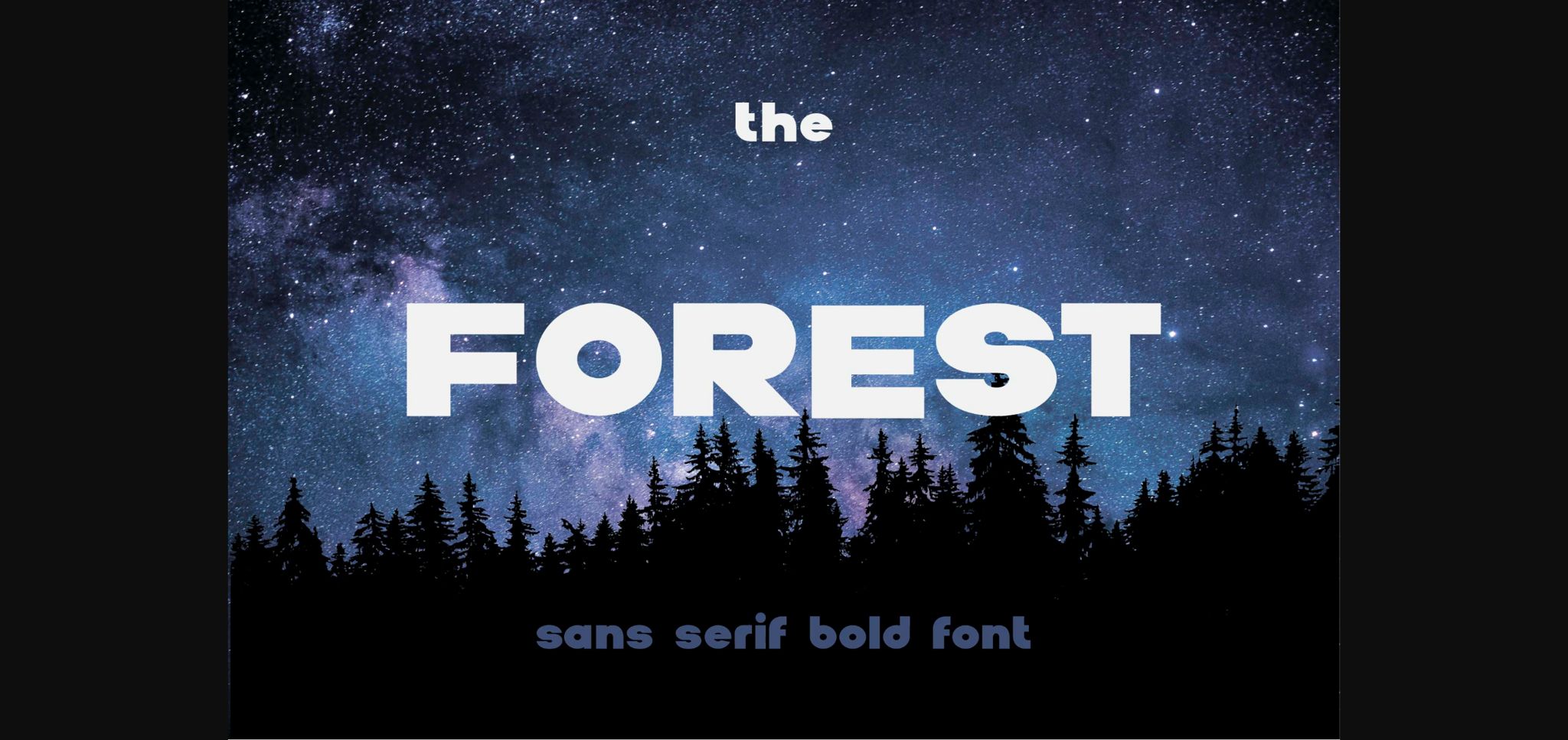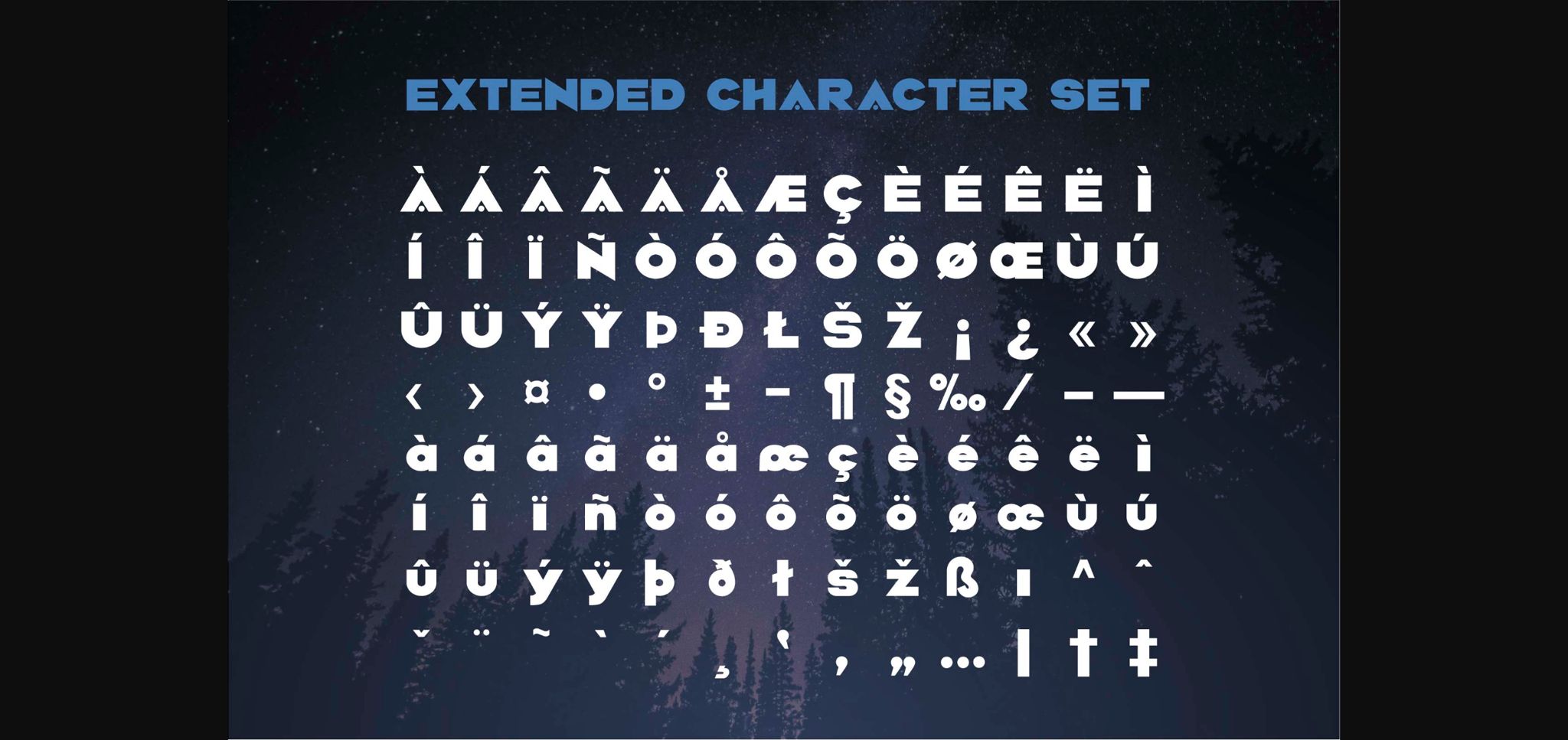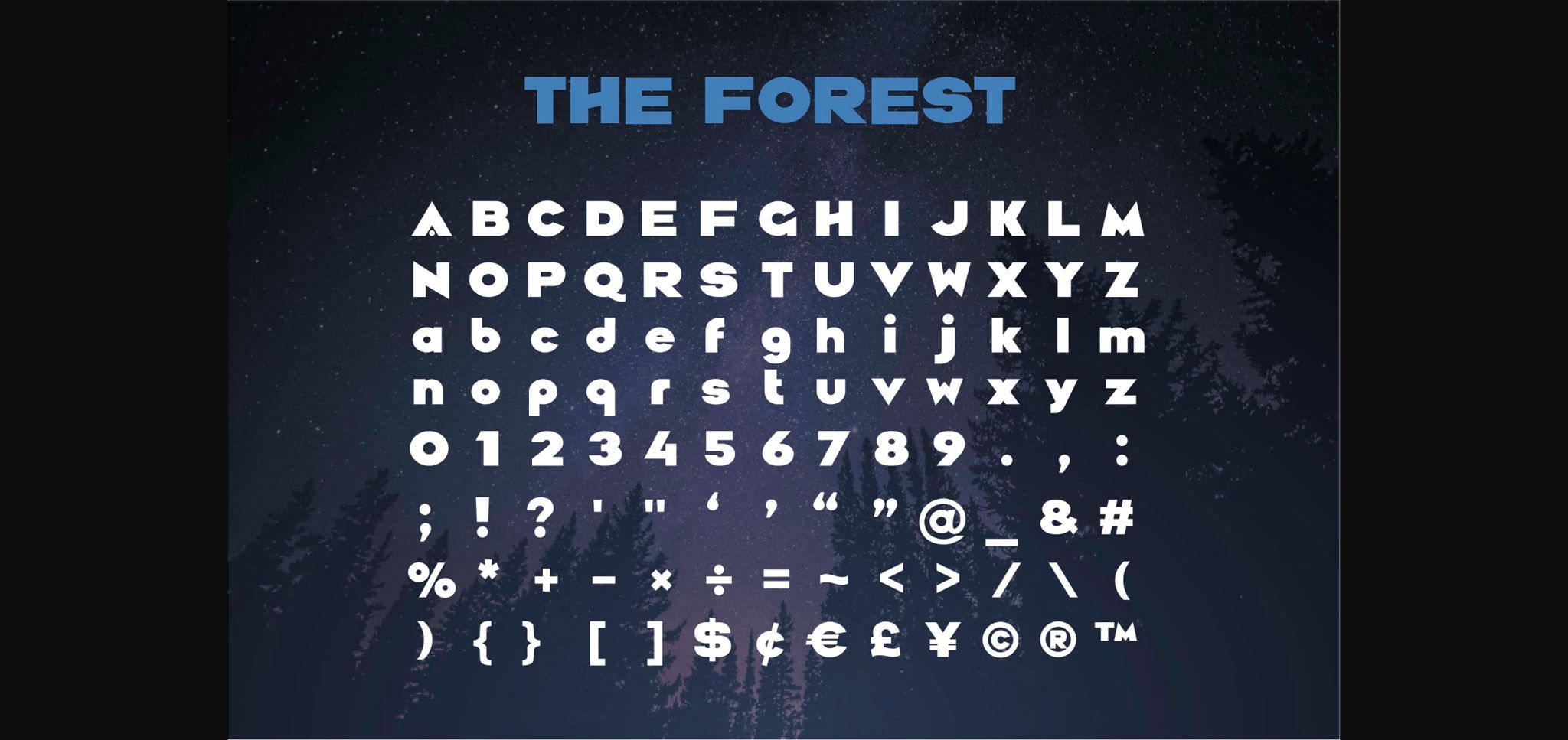
HomeSans Serif FontsThe Forest Font Sans Serif Fonts The Forest Font FacebookXPinterestWhatsApp 1 of 5 ... The Forest Font Poster 2... The Forest Font Poster 3... The Forest Font Poster 4... The Forest Font Poster 5... About The Forest Font The Forest is a bold and casual sans serif font. Add it to your most creative ideas and notice how it makes them come alive! DOWNLOAD NOW People also explored Good Friday Font Sketch Chalk Font Angestina Font Katkat Scrambled Font Batik India Font Woody Lorena Font Silvermain Font Shortblack Font 395 0 TagsThe Forest Font Previous articleFuturistic FontNext articleScientific Graphics Font LEAVE A REPLY Cancel reply Comment: Please enter your comment! Name:* Please enter your name here Email:* You have entered an incorrect email address! Please enter your email address here Website: Save my name, email, and website in this browser for the next time I comment. Personal Use Free Peachy Rose Personal Use Free Read more about this font Artisan Signature Personal Use Free Read more about this font Zephan Personal Use Free Read more about this font Shkoder 1989 Personal Use Free Read more about this font BLOG Best Fonts for YouTube Videos: Make Your Thumbnails Stand Out Best Fonts for YouTube Videos: Make Your Thumbnails Stand Out Choosing the right font can make a massive difference in how your YouTube videos perform.... Where to Buy American Fonts Online in 2024 Exploring Font Trends Elegant Wedding Invitation Fonts – Handwritten & Script Fonts